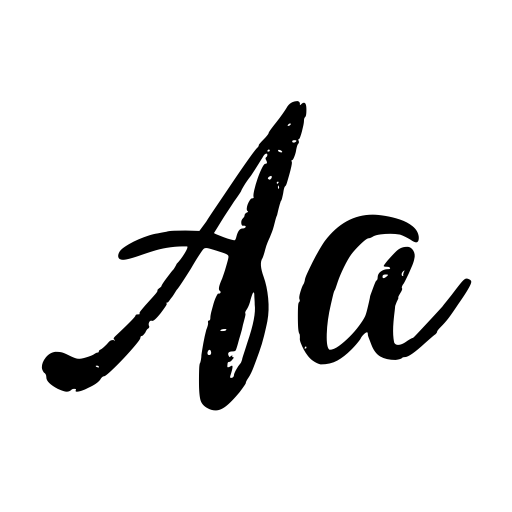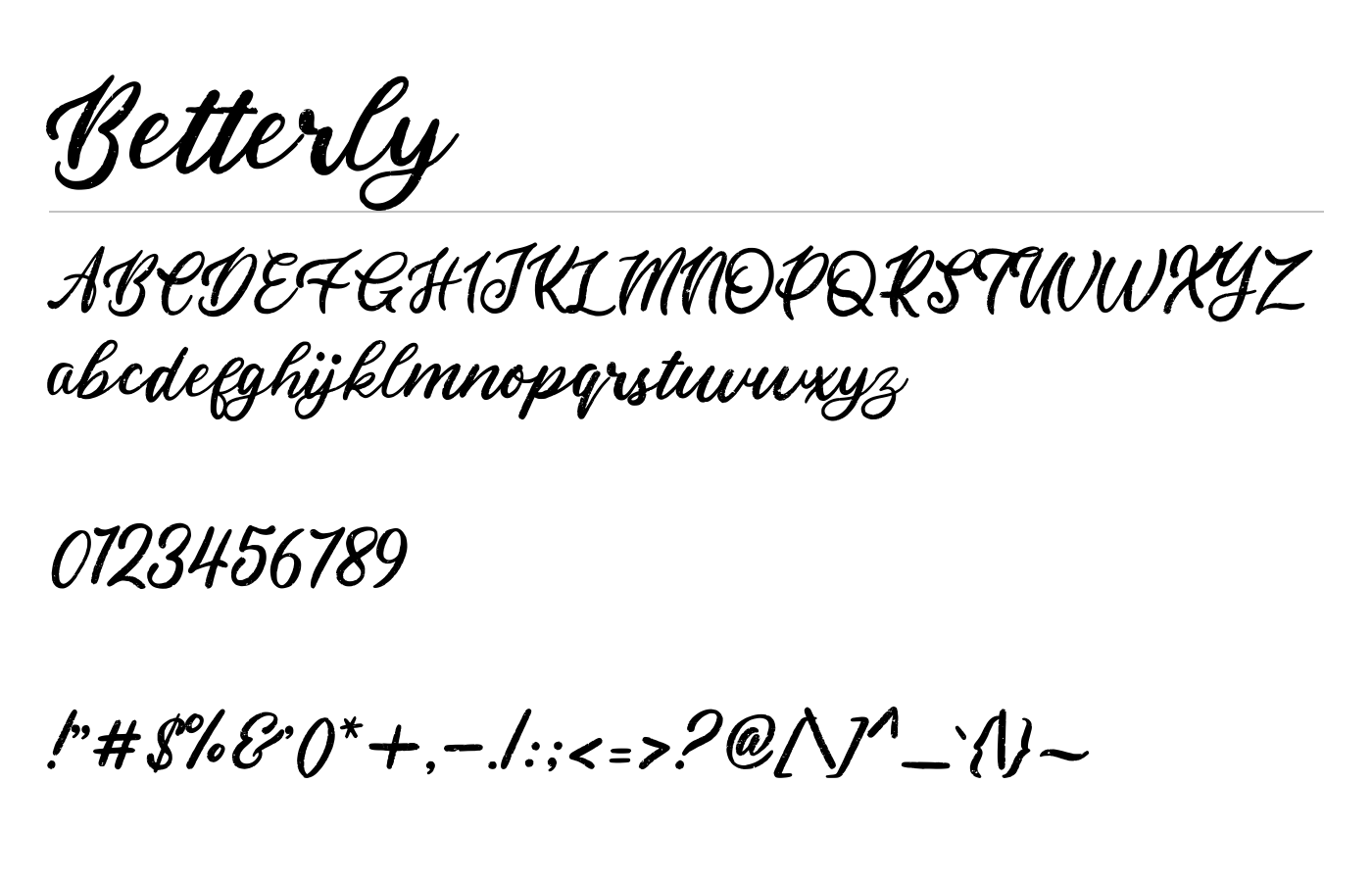
Betterly is a lively and elegant script font with smooth, flowing strokes that evoke a handcrafted, artistic feel. Its medium weight and slightly condensed letterforms make it perfect for adding a personal touch to branding, invitations, and creative headlines, while its clear character shapes ensure readability and charm. This font works wonderfully in designs that seek a warm, approachable, yet stylish and modern personality.
Betterly Font
About Betterly Font